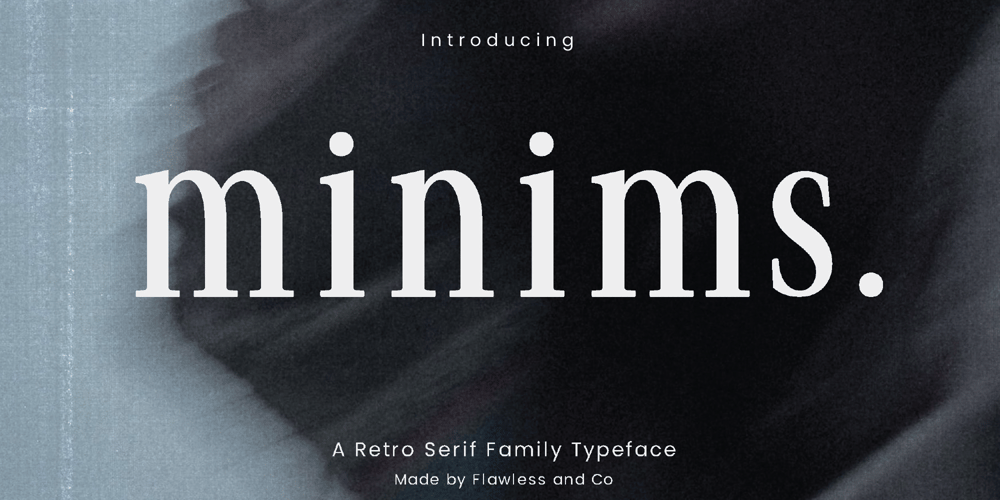
Minims Font Family was designed by Achmad Yani and published by Flawlessandco. Minims contains 7 styles and family package options. Minims – Retro Serif Family Font, Serif Font, Retro Font, Magazine Font, Elegant Font, Modern Font, Canva Font, Cursive Font, Cricut Font, Branding Font, Logo FontIntroducing “Minims – Retro Serif Family Font”. Dive into the diverse world of typography with “Minims”, a comprehensive typeface that goes beyond conventional limits. This font family is a symphony of styles, offering Thin, Extra Light, Light, Regular, Medium, Semi-Bold, and Bold variants, allowing you to craft designs that resonate with precision and personality.Explore the Versatility of Minims Retro Serif Family Series Font!Keywords: Serif Font, Family Series, Serif FamilyThere’s some connected letters and some alternates that suitable for any graphic designs such as branding materials, t-shirt, print, business cards, logo, poster, t-shirt, photography, quotes .etcThis font support for some multilingual. Also contains uppercase A-Z and lowercase a-z, alternate character, numbers 0-9, and some punctuation.If you need help, just write me! Thanks so much for checking out my shop!